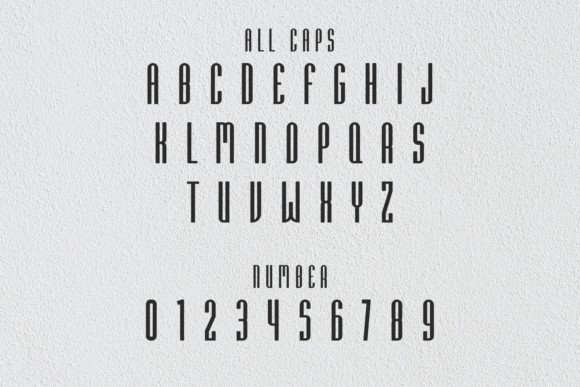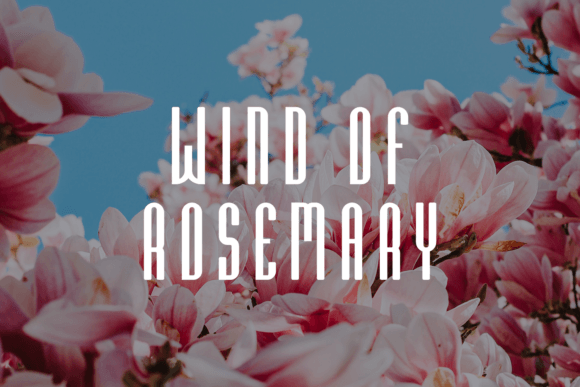
Introduction to Rapella Font
Imagine you’re working on a creative project and struggling to find the perfect font to bring your vision to life. You’ve searched through countless options, but nothing seems quite right. That’s where the Rapella Font comes in – a cool and unique display font that’s sure to elevate your design to the next level.
Neatly crafted and highly detailed, the Rapella Font is a valuable asset to any designer’s library. Whether you’re working on a high-quality design for a client or a personal project, this font has the potential to enhance any creation. With its versatility and charm, it’s no wonder the Rapella Font is becoming a go-to design resource for creatives around the world.
Key Features of Rapella Font
- High-quality design resource ideal for creative projects, offering a unique and stylish touch.
- Transparent background, allowing for seamless integration into any design or project.
- Features a high-resolution design, perfect for printing and large-scale applications.
- Perfect for designers, artists, and creatives looking to add a touch of elegance and sophistication to their work.
- Includes a range of characters and glyphs, including international characters, making it a versatile design resource.
Honest Review: Rapella Font
As a designer, I’m always on the lookout for high-quality design resources that can elevate my creative projects. Recently, I stumbled upon the Rapella Font, and I must say it’s been a game-changer for my designs.
Here are some things that work well with the Rapella Font:
- ✨ Unique and stylish design that adds a touch of elegance to any project
- ✨ Highly customizable, making it perfect for logos, branding, and other design elements
Overall, I’m thoroughly impressed with the Rapella Font. Its high-quality design and flexibility make it an excellent choice for designers working on creative projects. While there are some limitations, the benefits far outweigh the drawbacks. If you’re looking for a free design resource that can elevate your work, I highly recommend giving the Rapella Font a try.
The Rapella Font is perfect for various design projects, including: